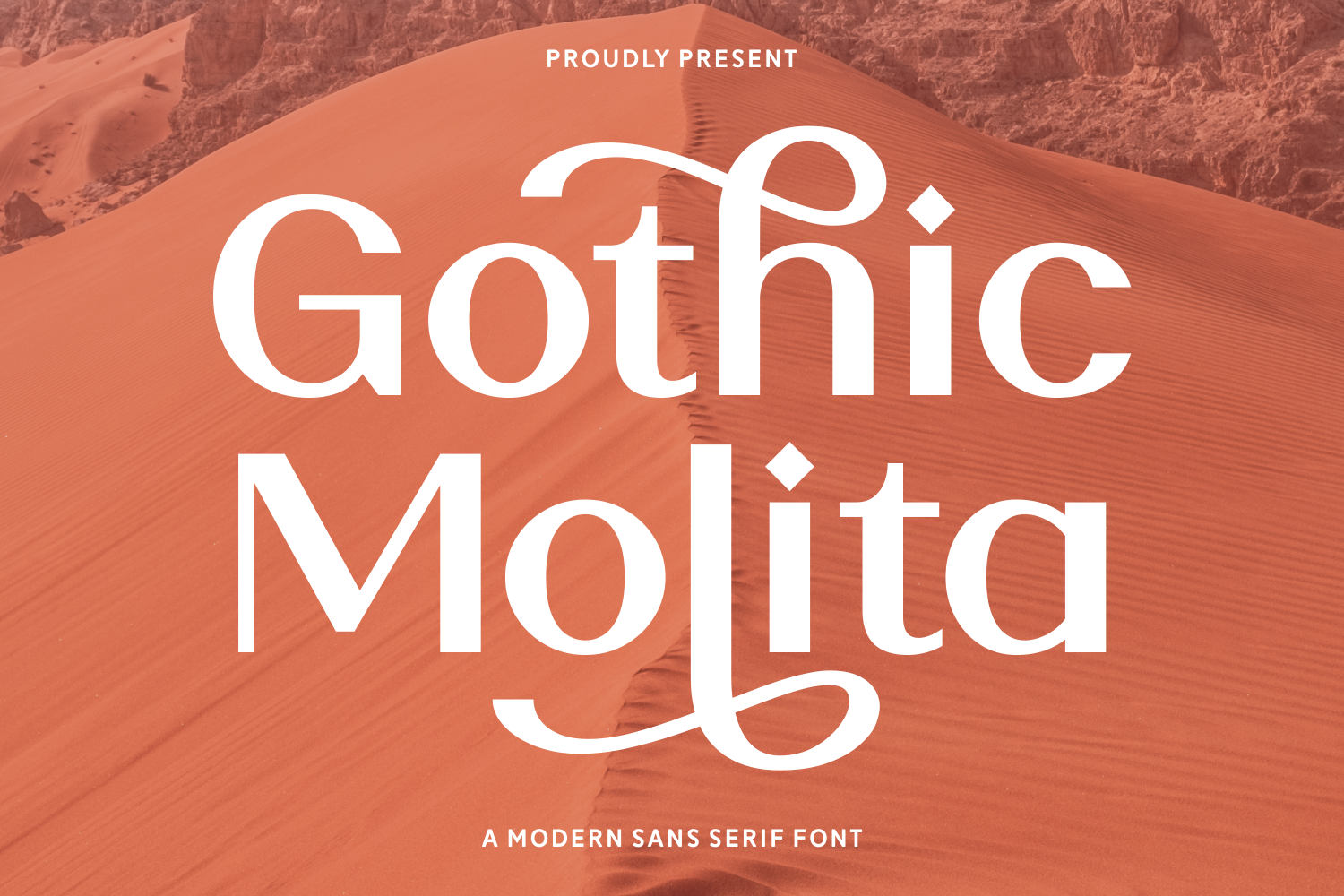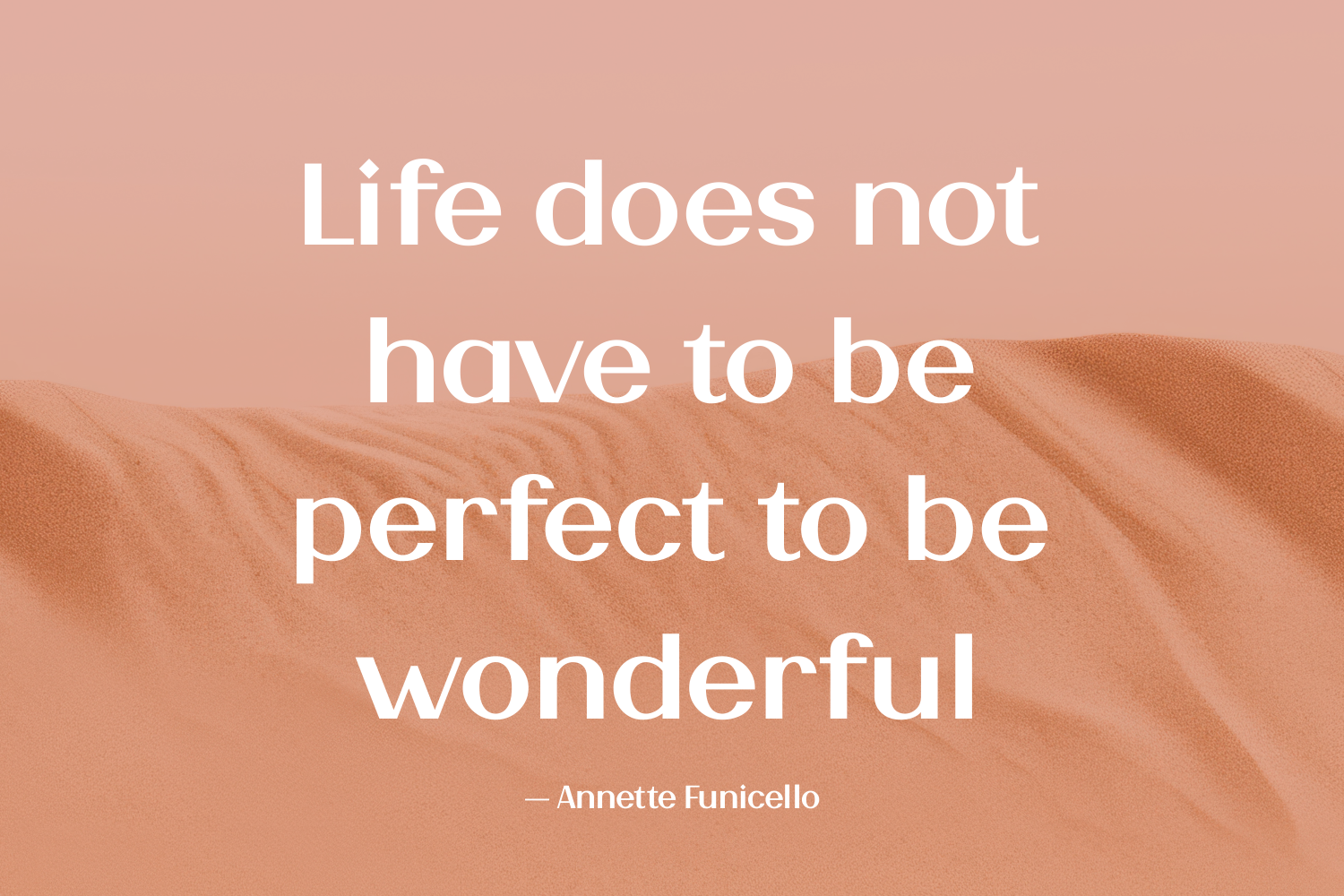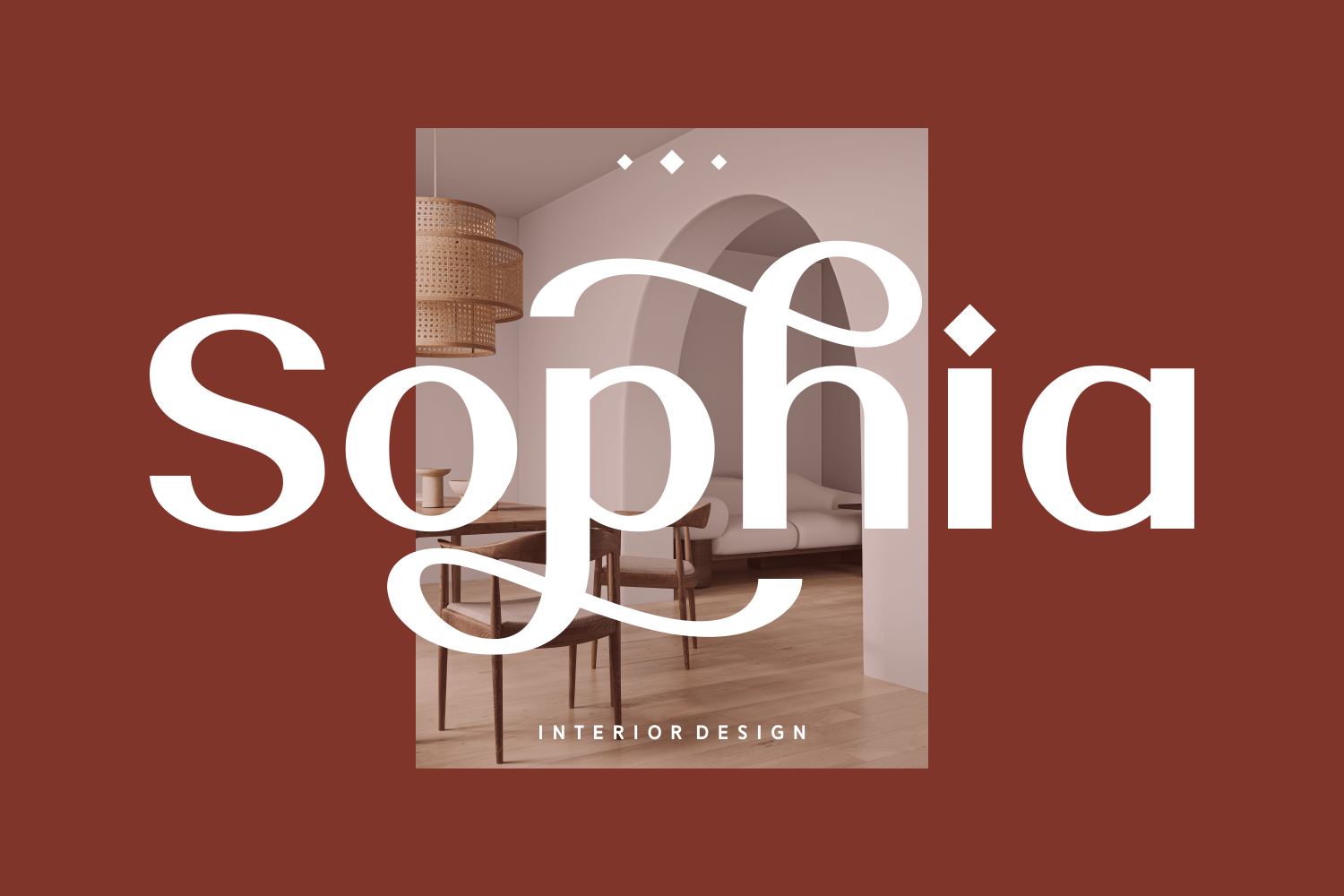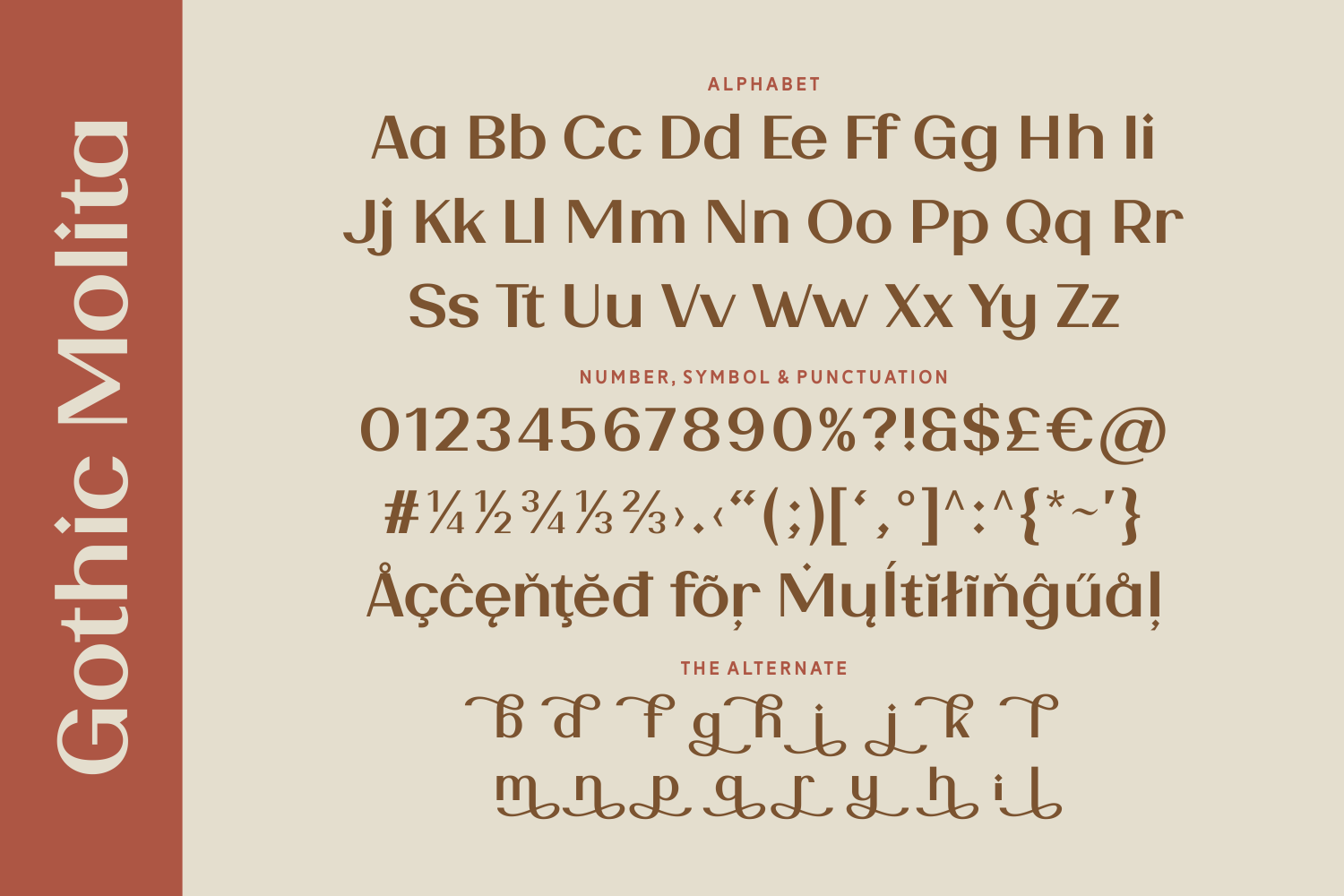
Gothic Molita is a modern sans serif font infused with high contrast and dramatic flair. Featuring stylish alternates and swashes, it’s perfect for branding projects, fashion editorials, and any design needing an elevated, luxurious tone.